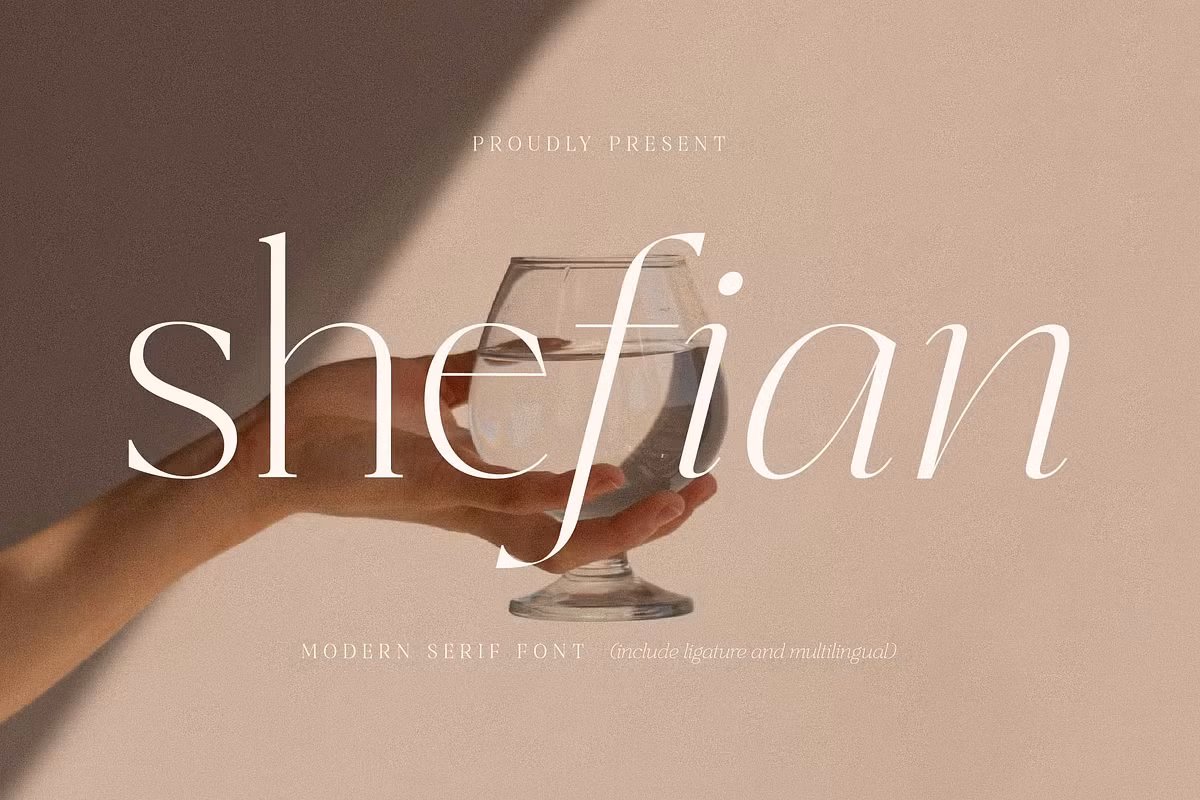
Shefian Modern Serif Font Free Download
Refine your typography with Shefian Modern Serif Font Free Download, a classy and contemporary typeface perfect for elegant design projects. You need to purchase this font for commercial use. However, you can test it in personal or demo projects using Shefian Modern Serif Font Free Download. With its sharp serifs, stylish ligatures, and high contrast, Shefian is ideal for branding, editorial layouts, packaging, fashion design, and luxury logos. Designers love its bold yet sophisticated look that blends tradition with modern flair. Download Shefian Modern Serif Font Free Download today and give your next project a polished, upscale edge.